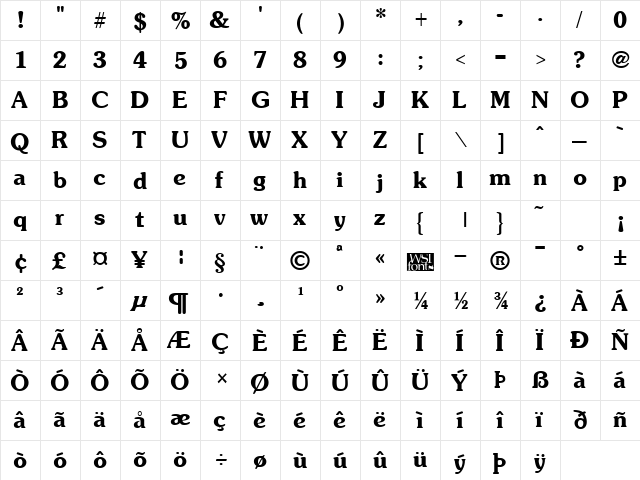
SoutaneExtrabold Regular
Design Context for SoutaneExtrabold Typeface
SoutaneExtrabold is a composed and adaptable typeface that performs quietly and consistently across a wide range of design contexts. Its bold stroke weight gives it real presence on the page.